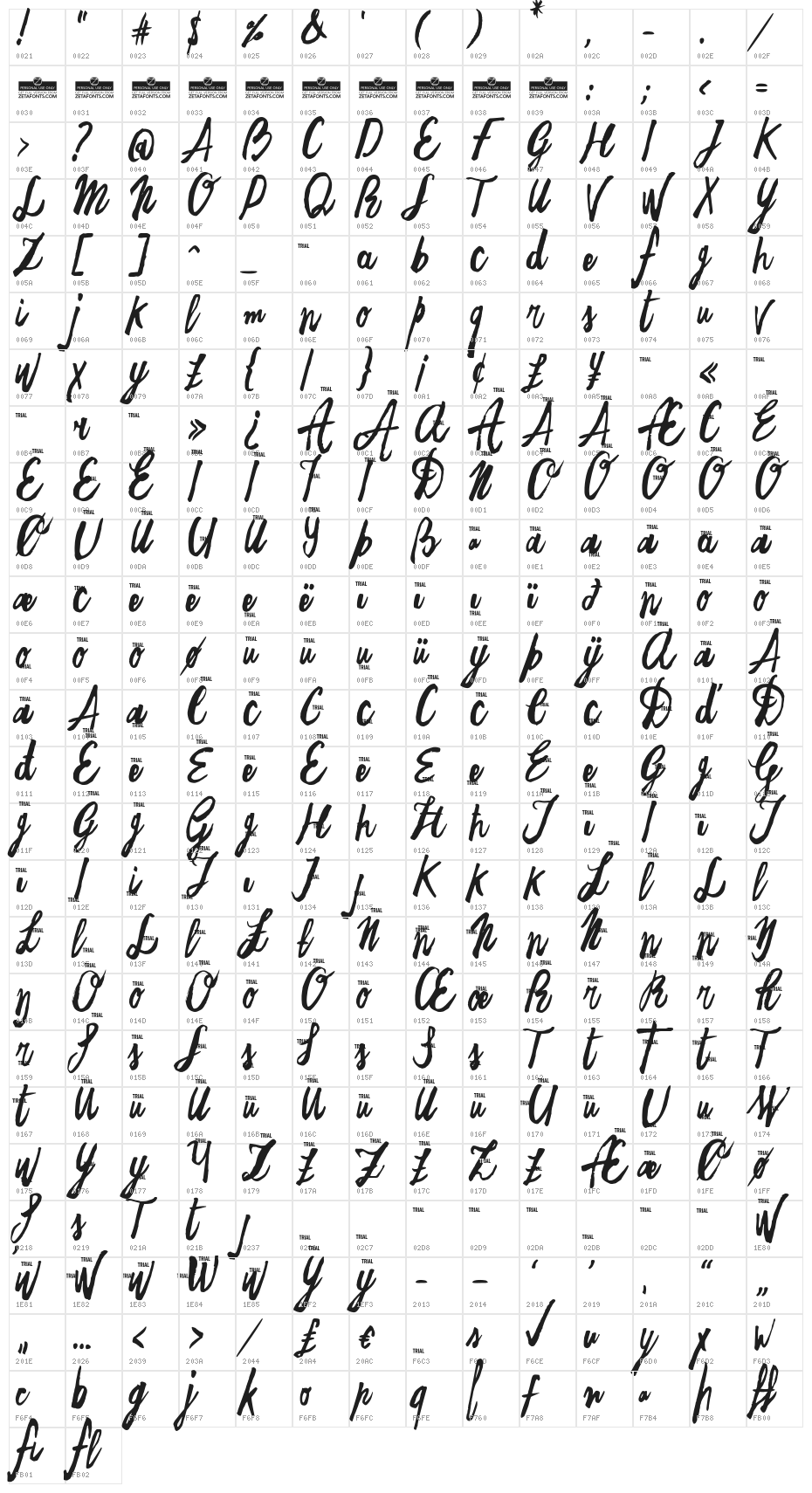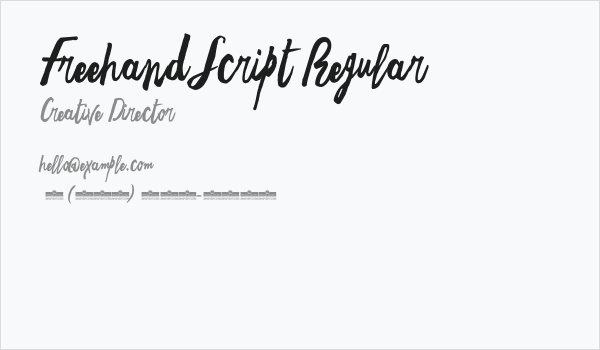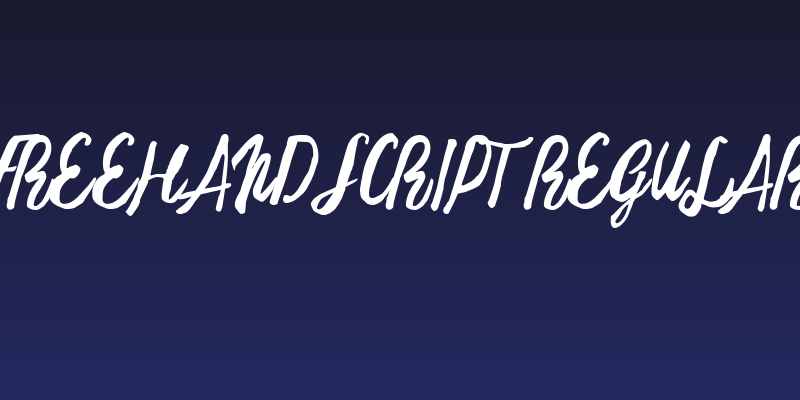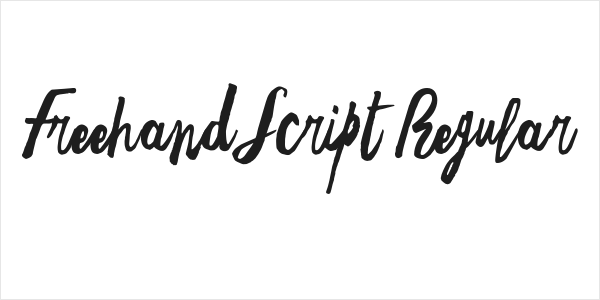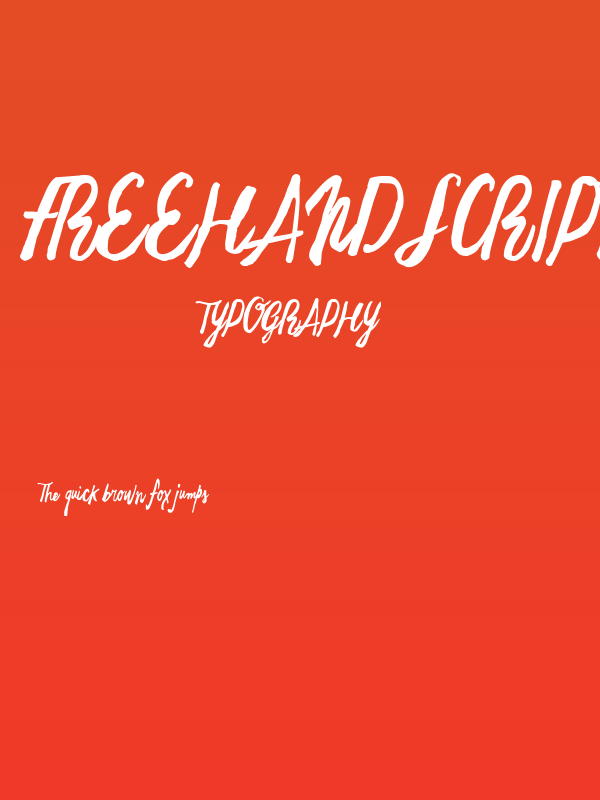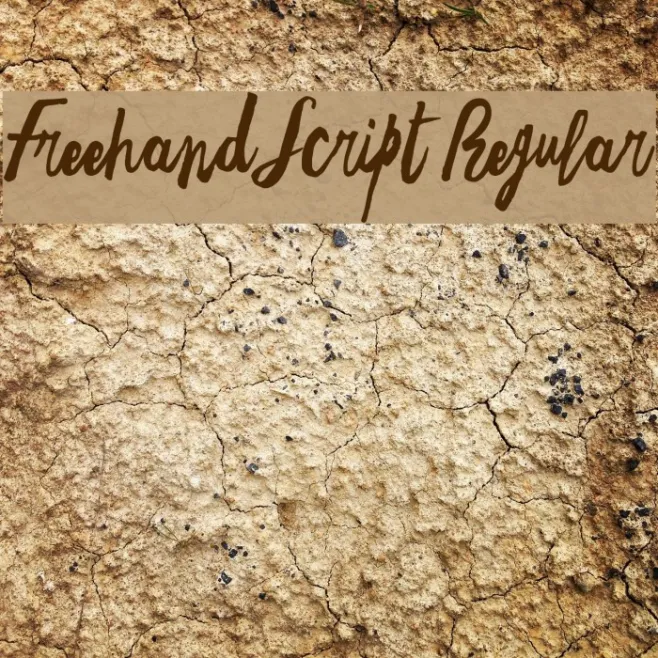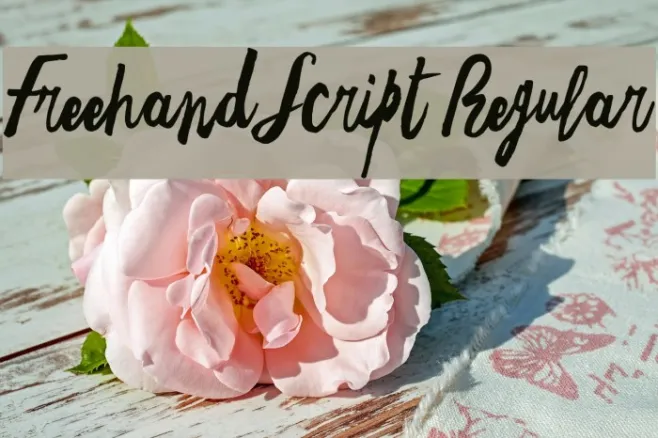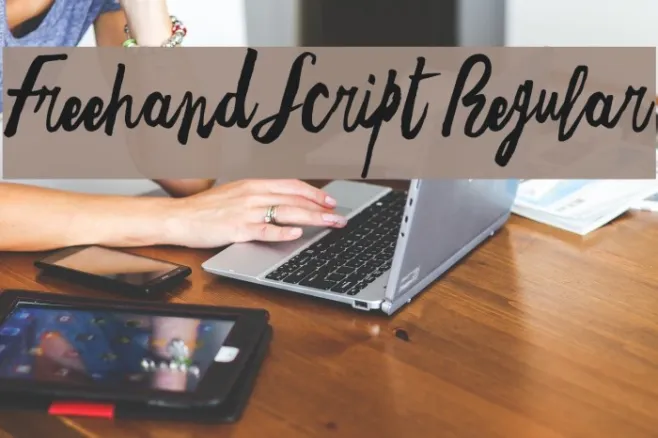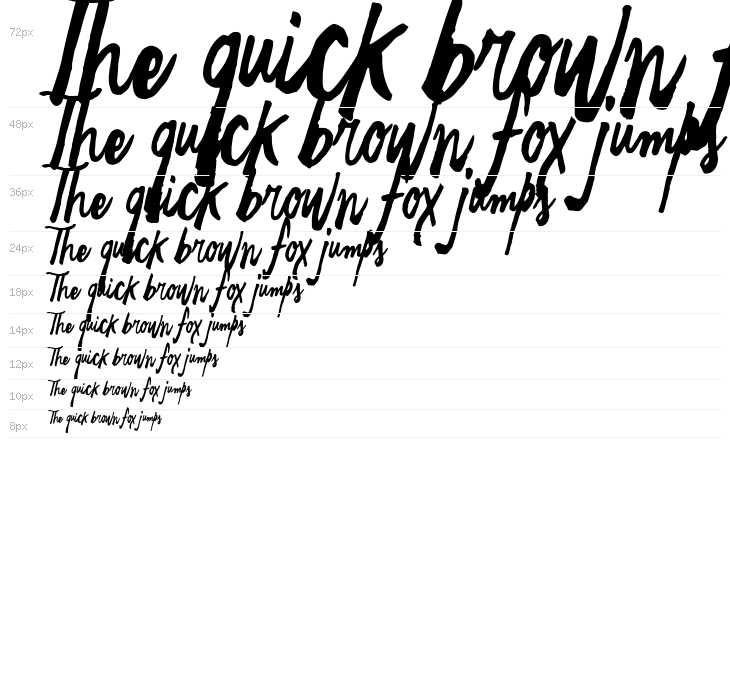
Freehand Script Regular Font
Freehand Script Regular Description
This font exudes a dynamic and expressive style, characterized by its fluid, cursive script that mimics the natural flow of handwriting. The letters are interconnected, creating a seamless and continuous appearance. The strokes are bold and confident, with varying thickness that adds a sense of movement and energy. This font captures the essence of freehand writing, making it ideal for projects that require a personal and artistic touch. Its unique style is both elegant and casual, suitable for a variety of creative applications.
| Proposed Projects | Ideal for greeting cards, invitations, personal branding, artistic posters, and creative logos. |